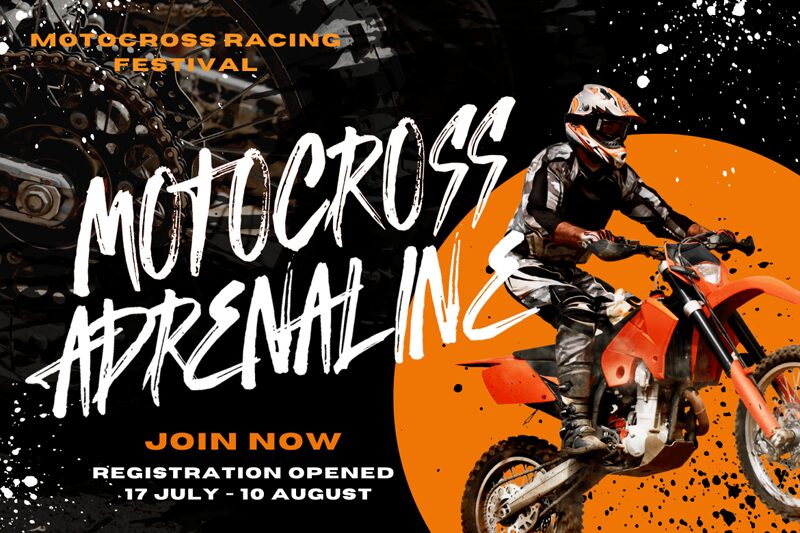
Alyester by Sifak Muf is a captivating brush-style font that exudes a sense of effortless elegance. Its condensed width lends a refined, sophisticated air, while the expressive, hand-crafted strokes imbue the lettering with a dynamic, artisanal charm. The font's aesthetic seamlessly blends vintage and modern sensibilities, making it a versatile choice for a wide range of design projects.
This font's versatility shines through in its ability to elevate branding, packaging, and editorial design with its distinctive personality. Alyester's bold, yet elegant presence makes it an ideal choice for creating eye-catching headlines, impactful logos, and stylish product labels. Its unique brush-like quality also lends itself well to creative applications, such as invitations, greeting cards, and custom typography, where a touch of artisanal flair is desired.